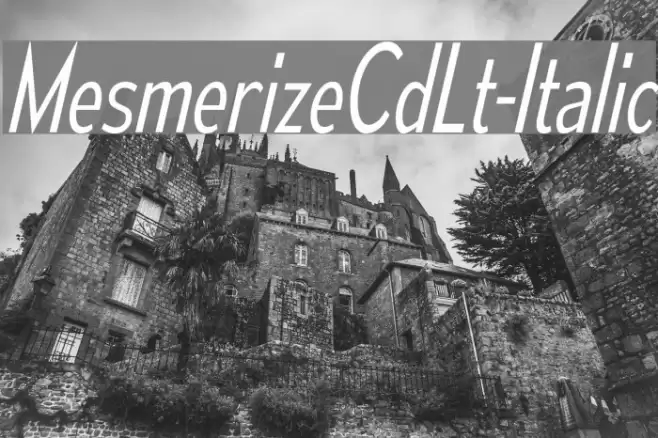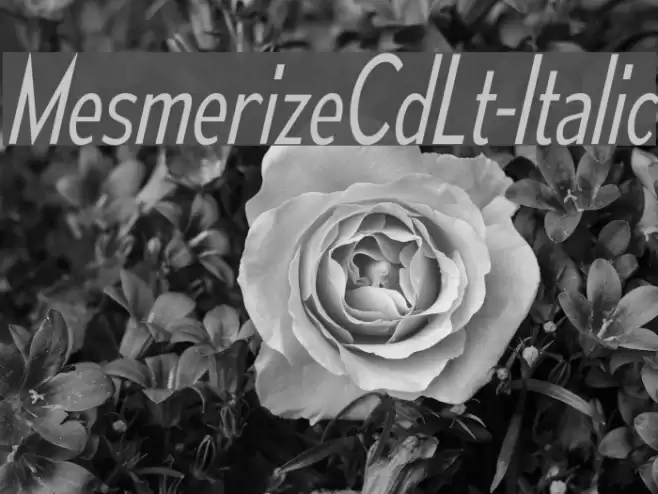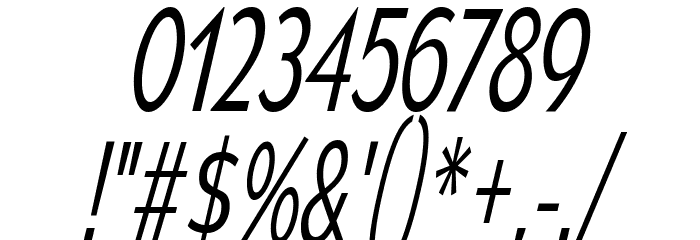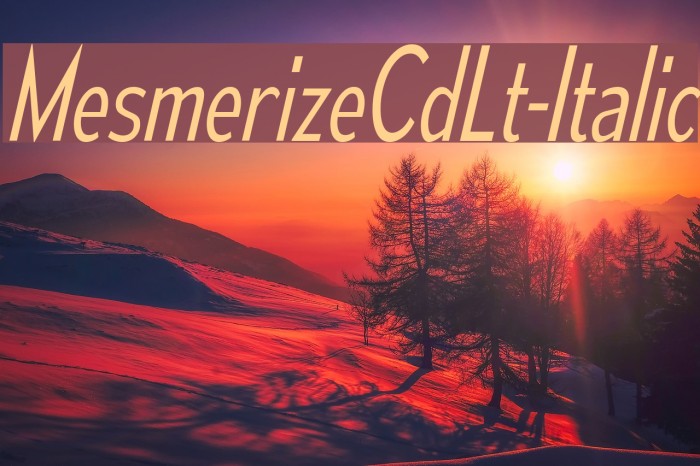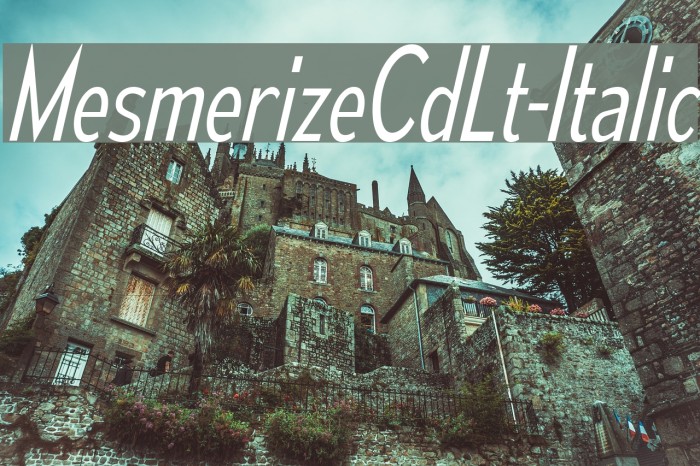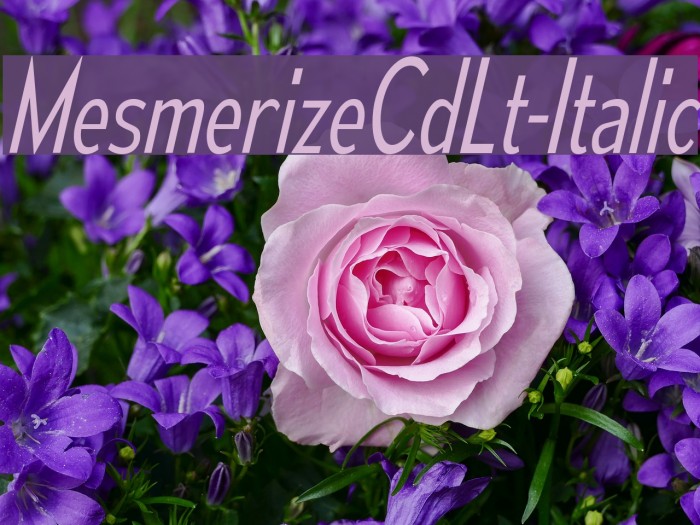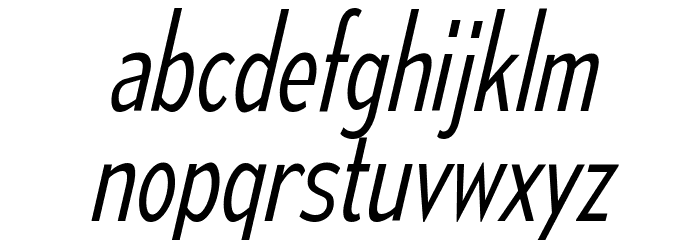
MesmerizeCdLt-Italic Font
MesmerizeCdLt-Italic Description
This font features a sleek and modern design with a distinct italic slant, giving it a dynamic and forward-moving appearance. The characters are slightly condensed, enhancing its contemporary feel while maintaining readability. The strokes are consistent, with medium contrast that adds a subtle elegance to the overall look. The uppercase and lowercase letters are well-proportioned, and the numerals are clear and easy to distinguish. Special characters are included, making it versatile for various applications. Its clean lines and professional aesthetic make it suitable for both digital and print media.
A modern, italic, and slightly condensed font with medium contrast from Uncategorized fonts.
- Proposed Projects: Ideal for branding, editorial design, advertising, and web design projects.